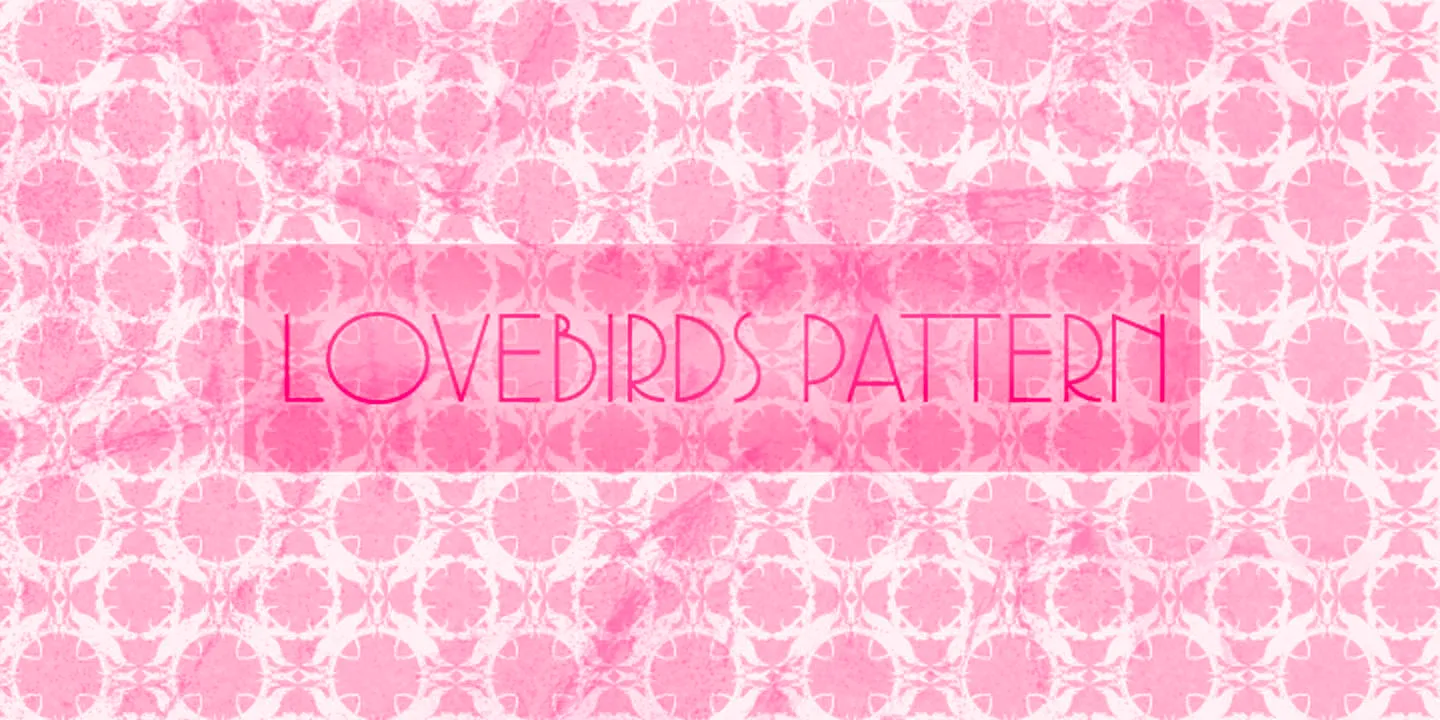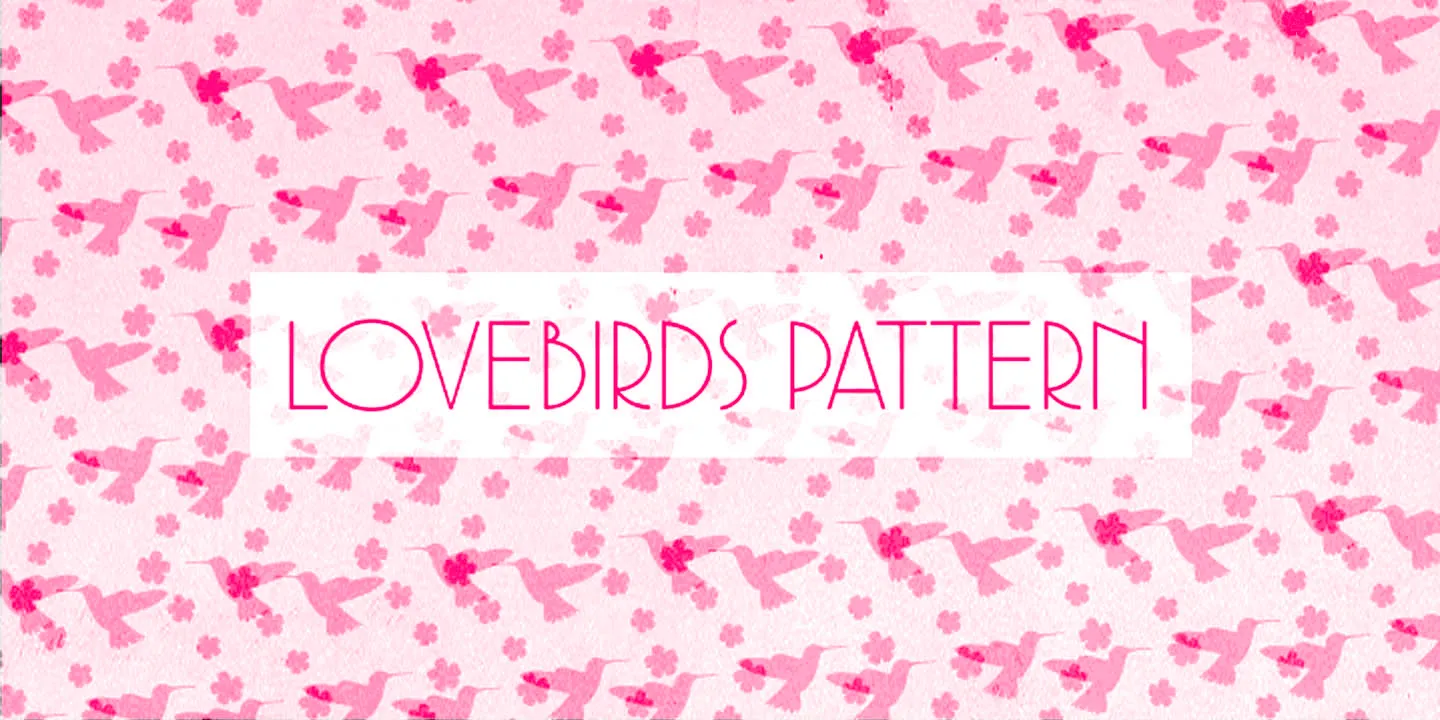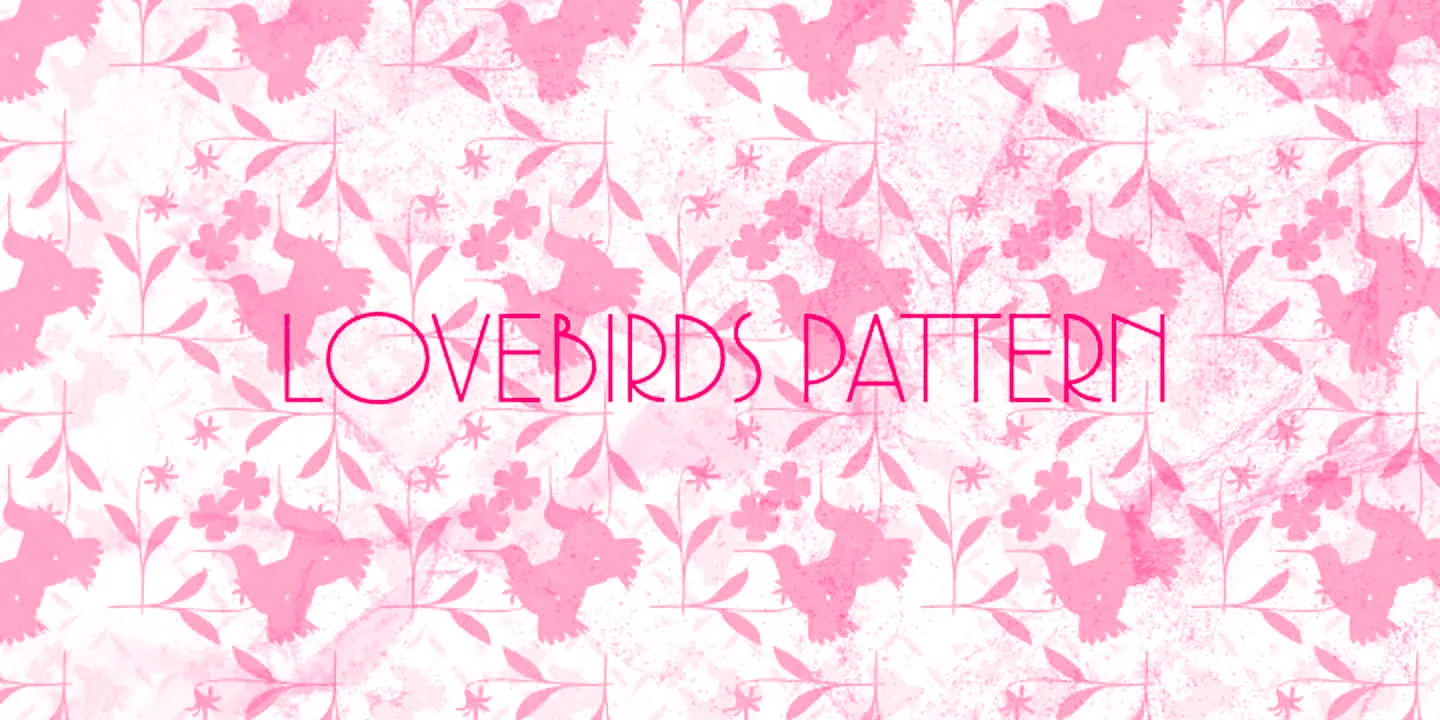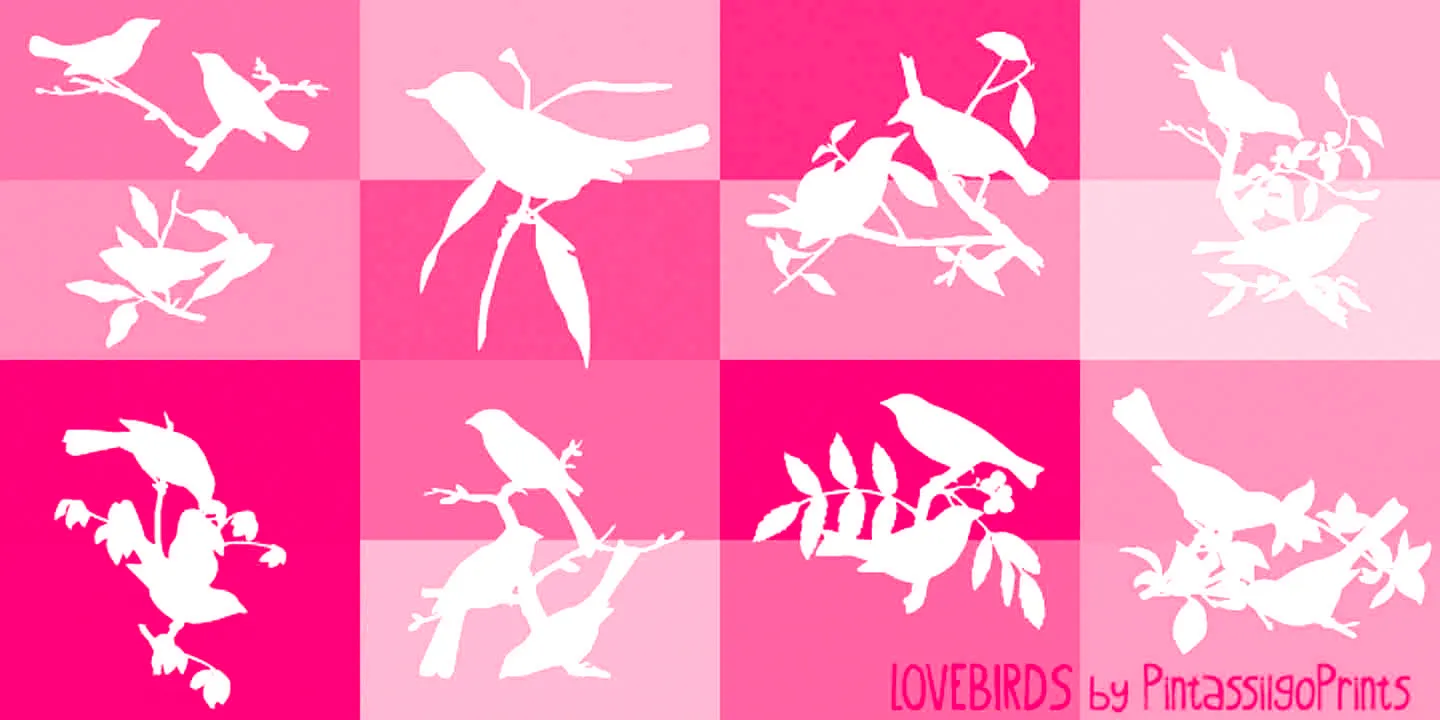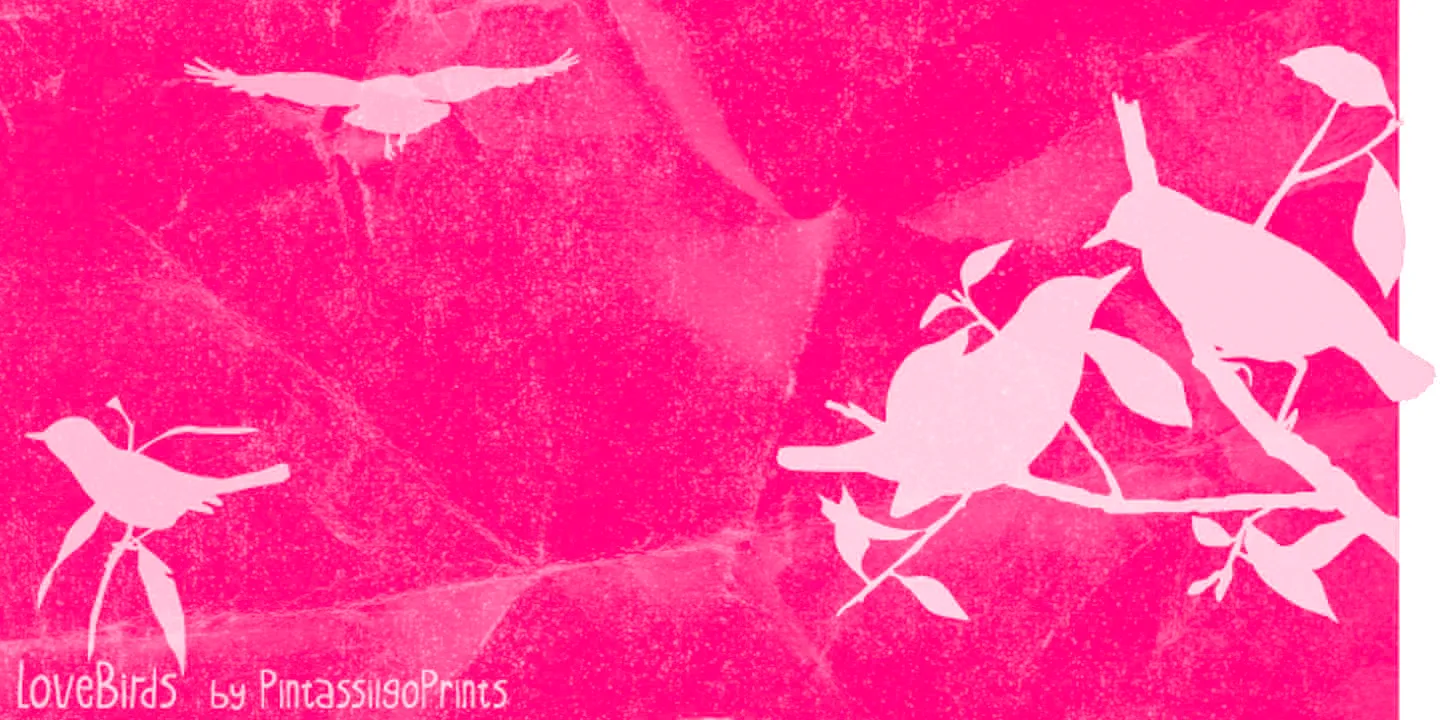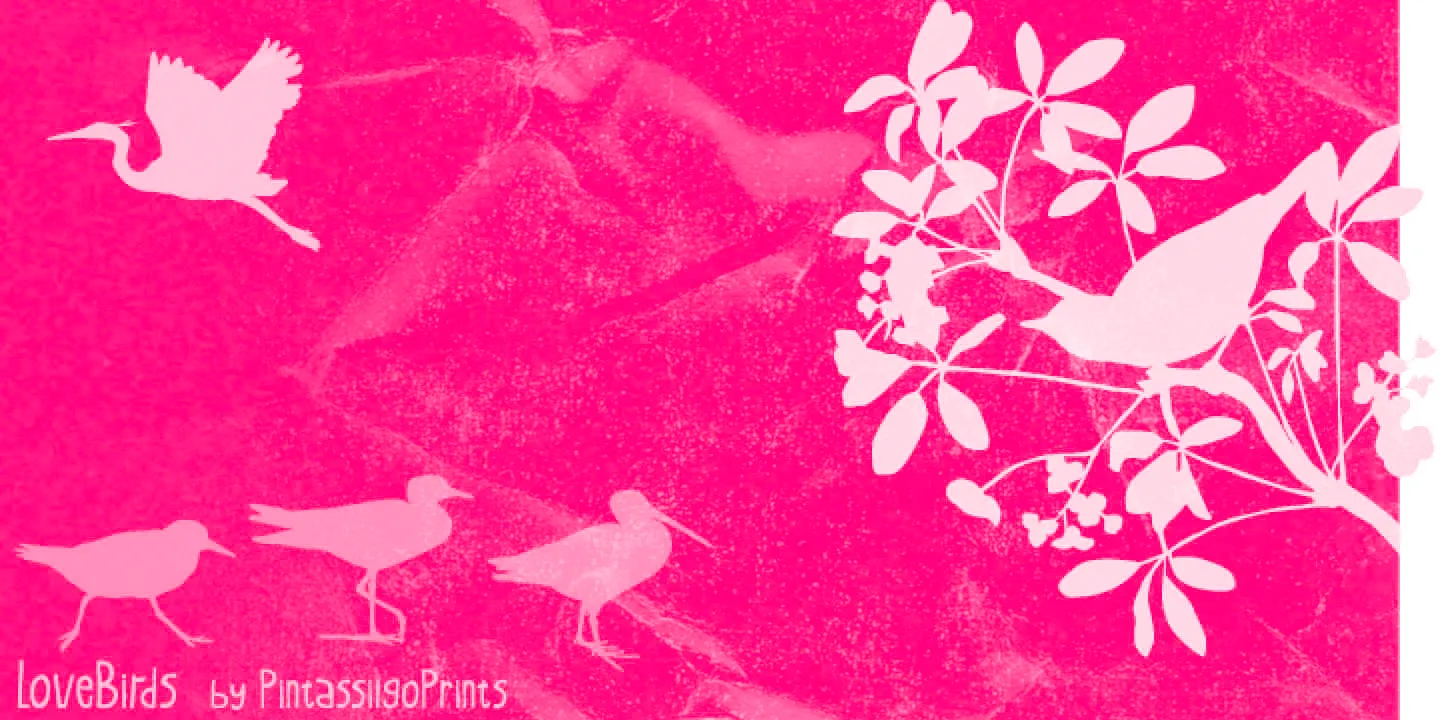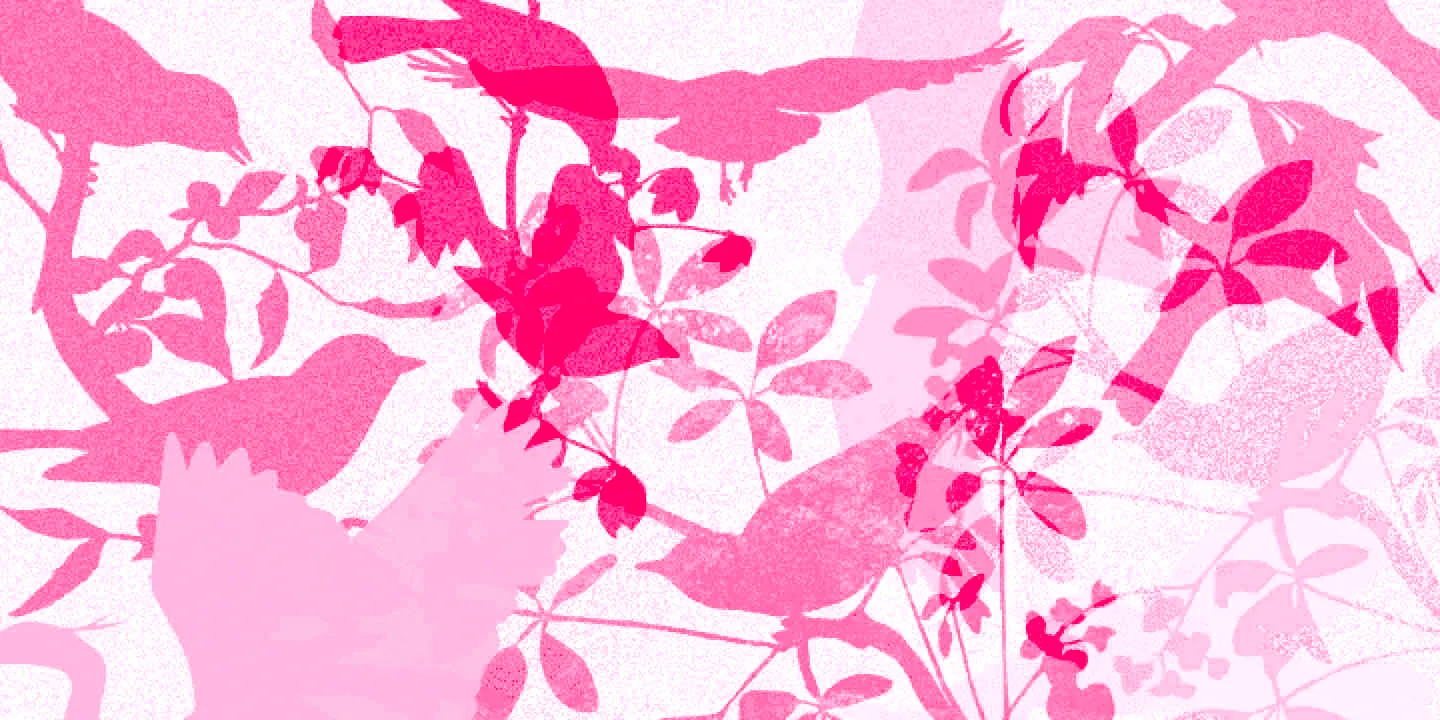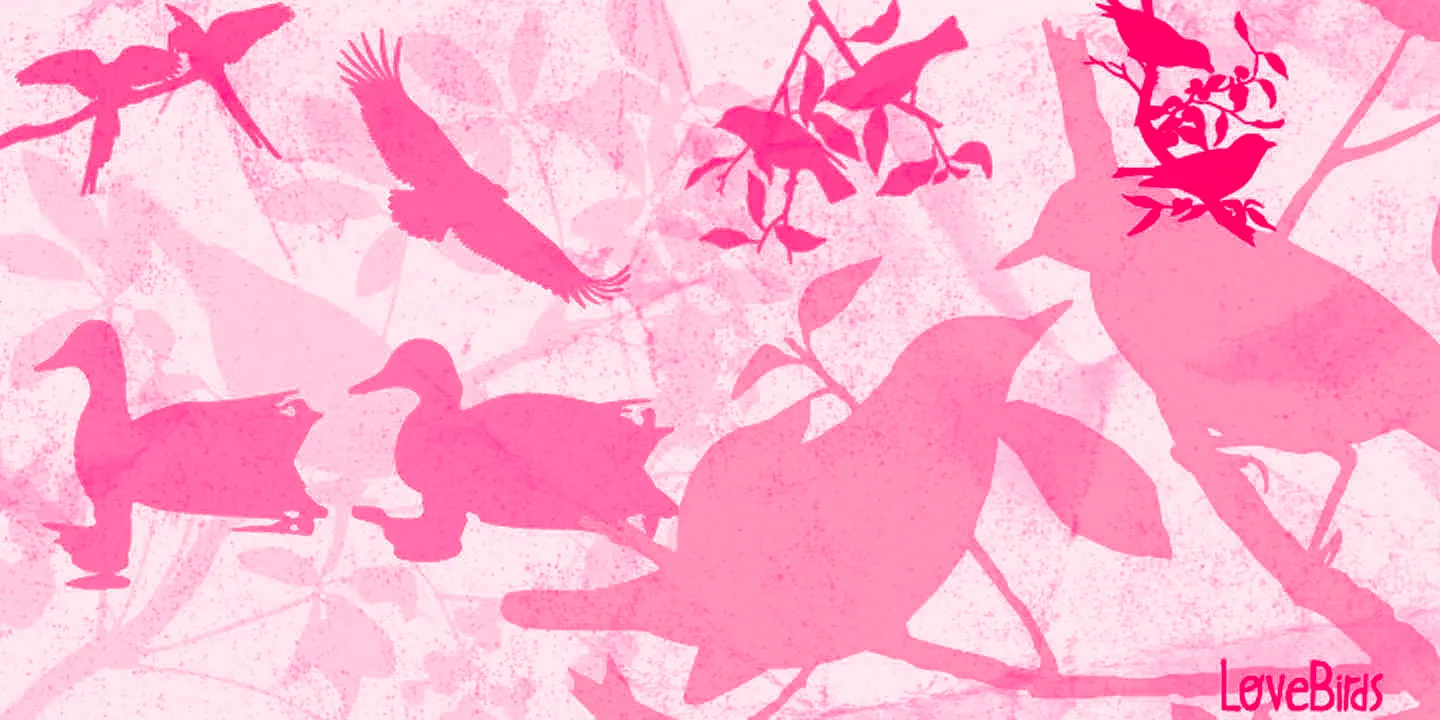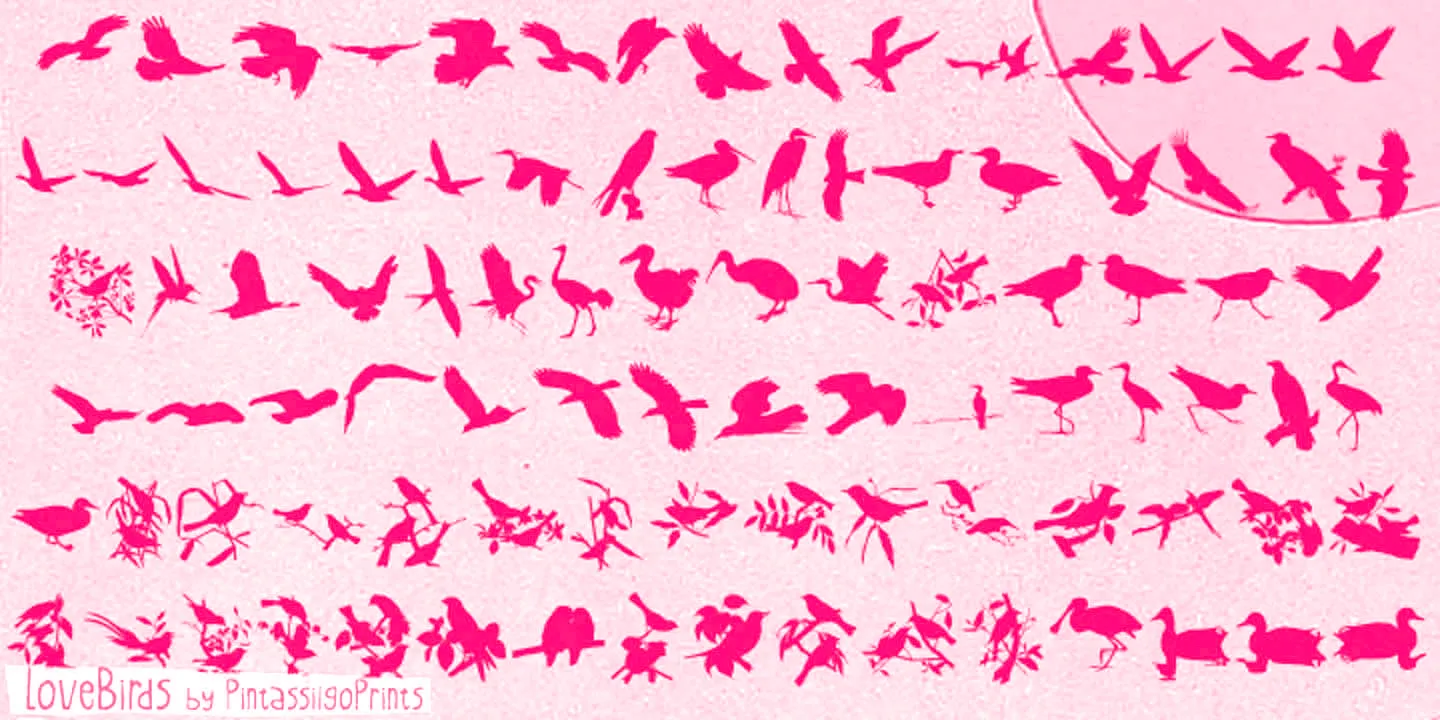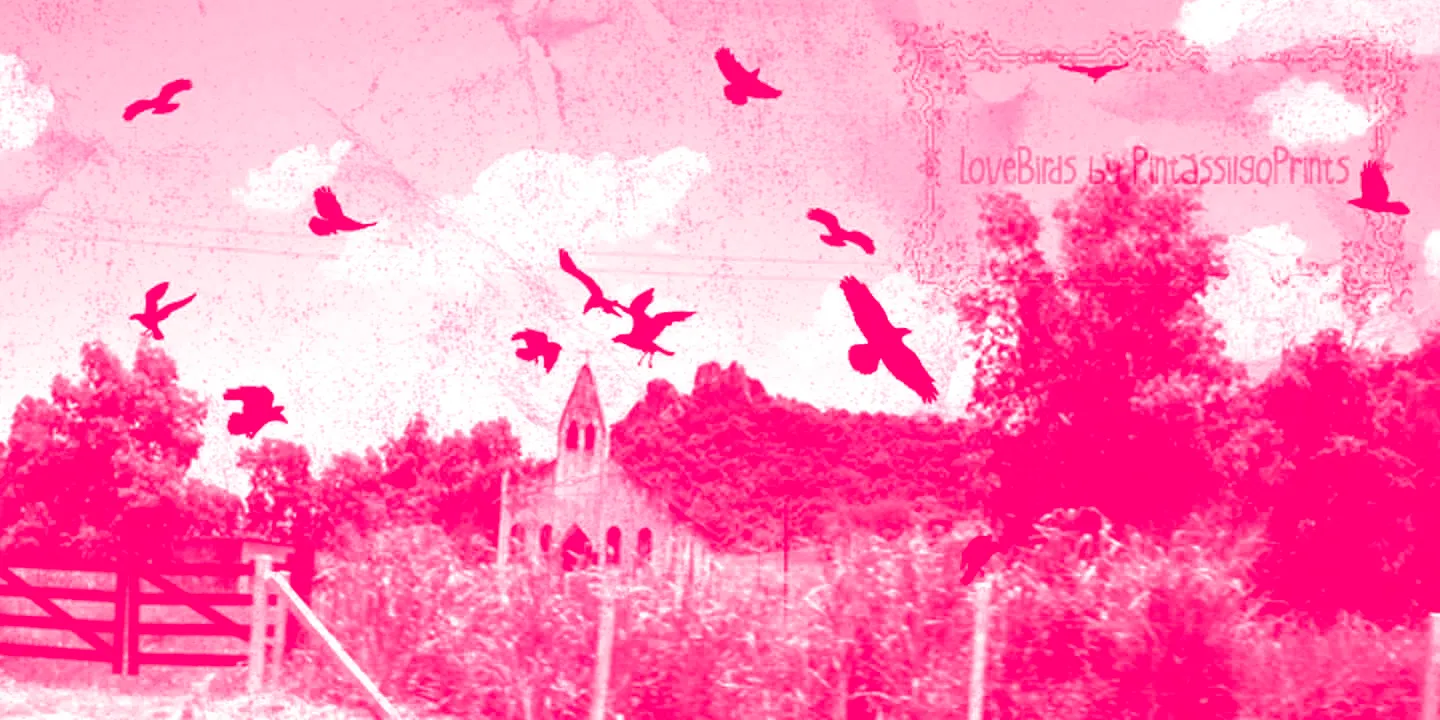
LoveBirds Fonts
LoveBirds
Lovebirds is a font family made up of a handful of illustrated birds and nature-inspired patterns. Use them to add decoration to packaging, magazines, books, scrapbooking, and greeting cards.